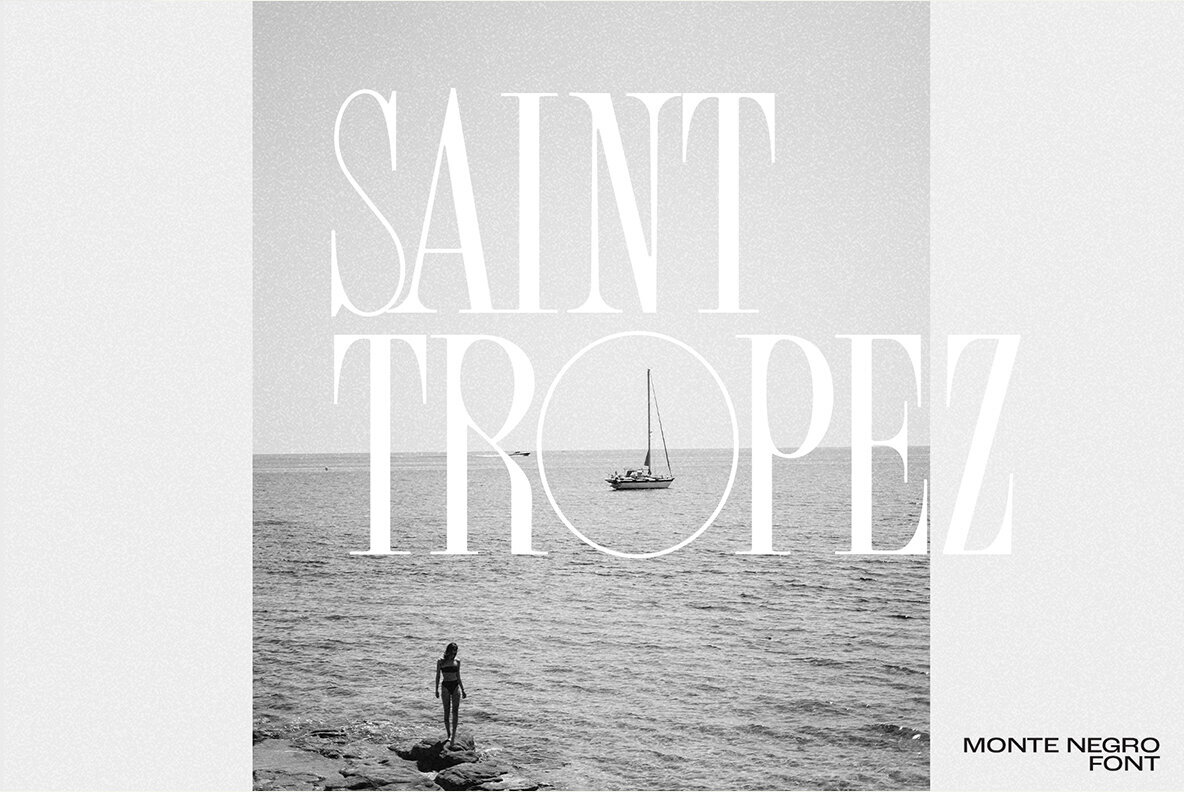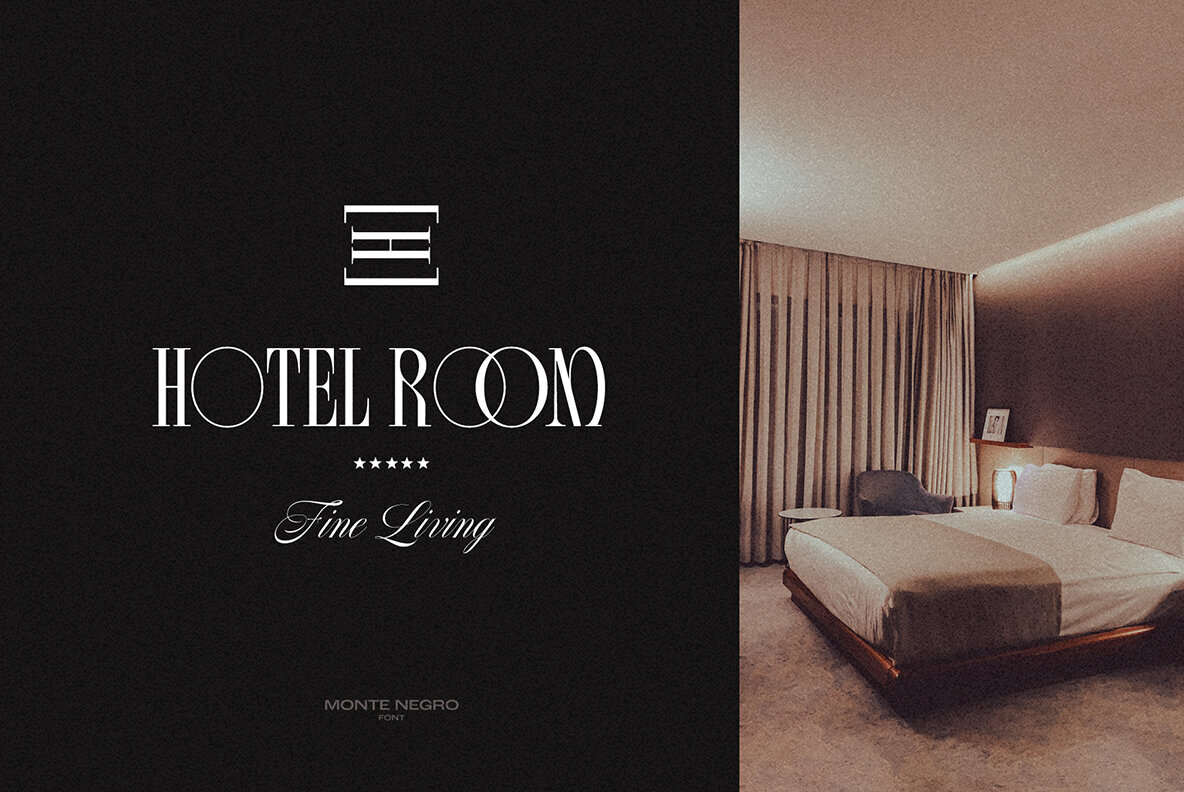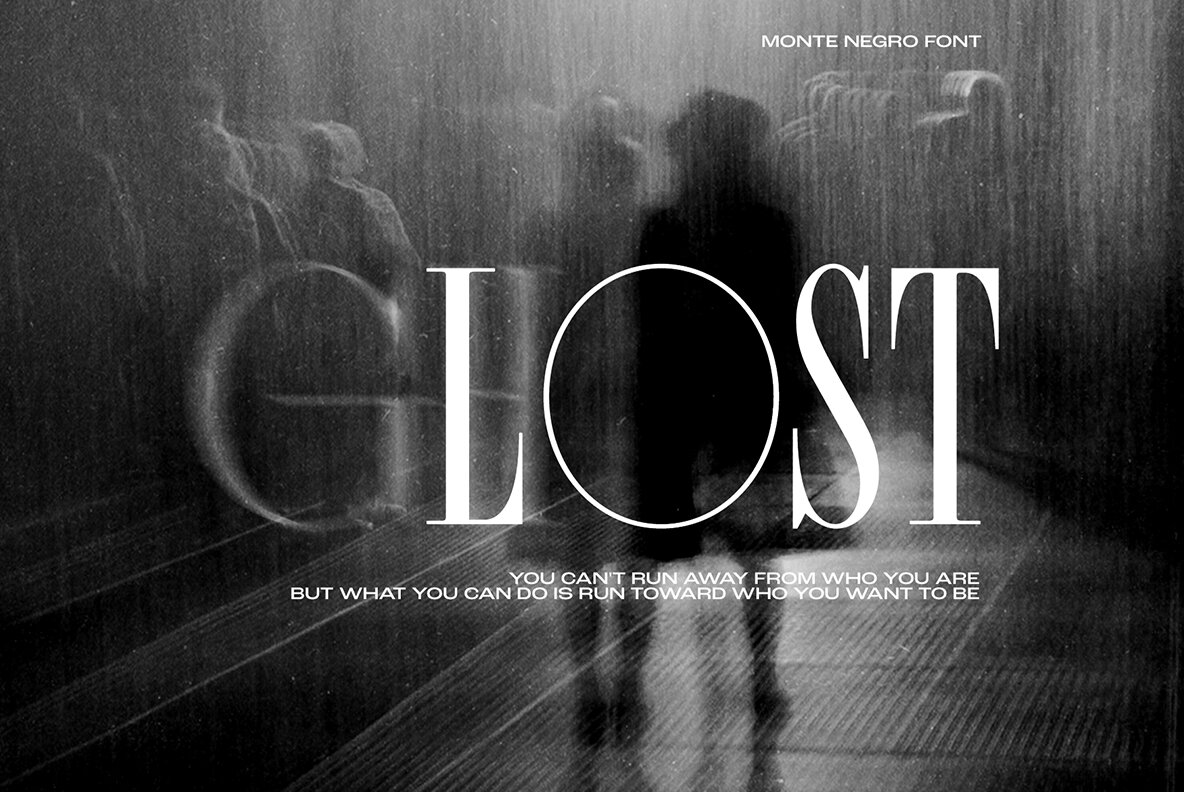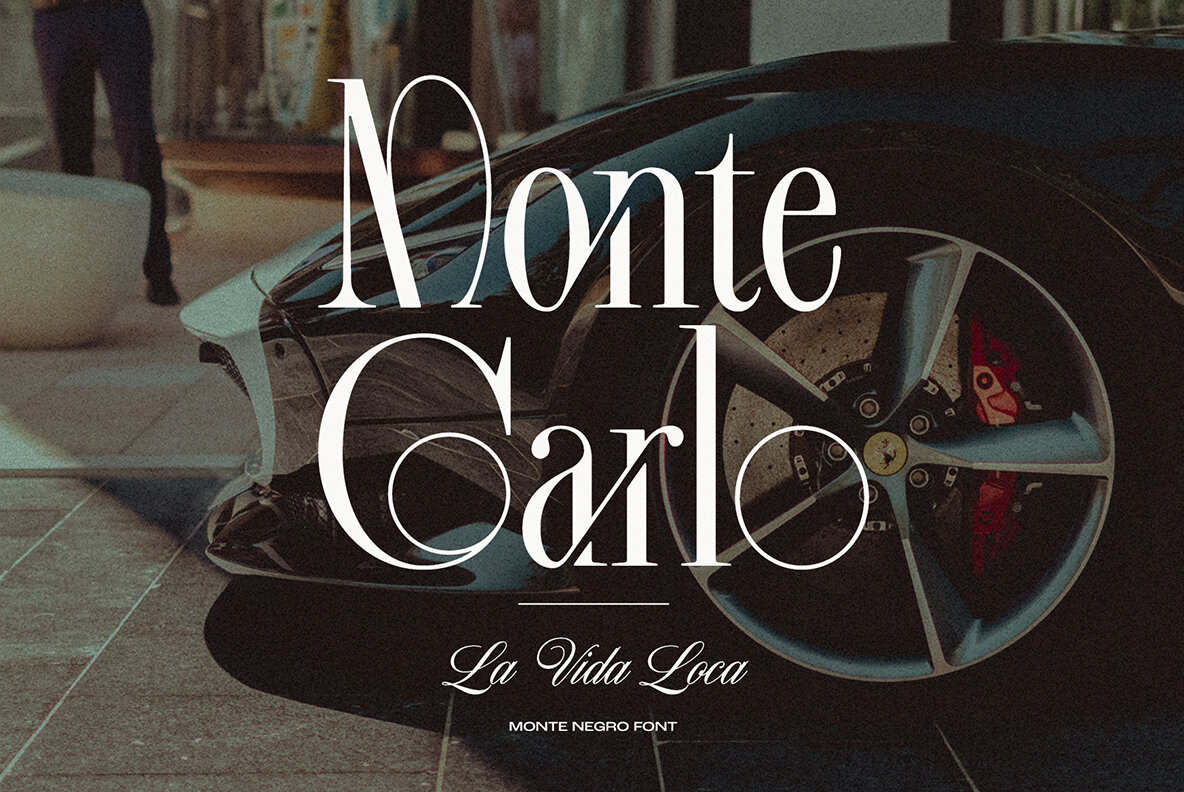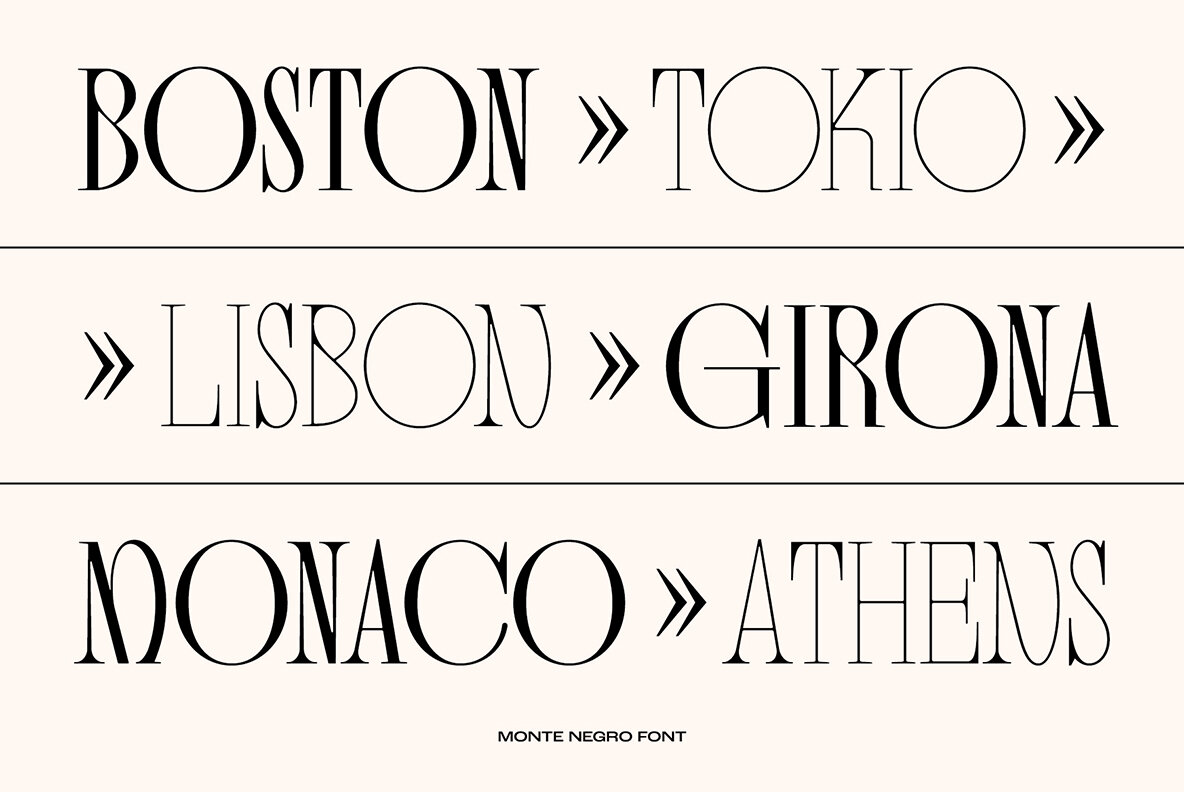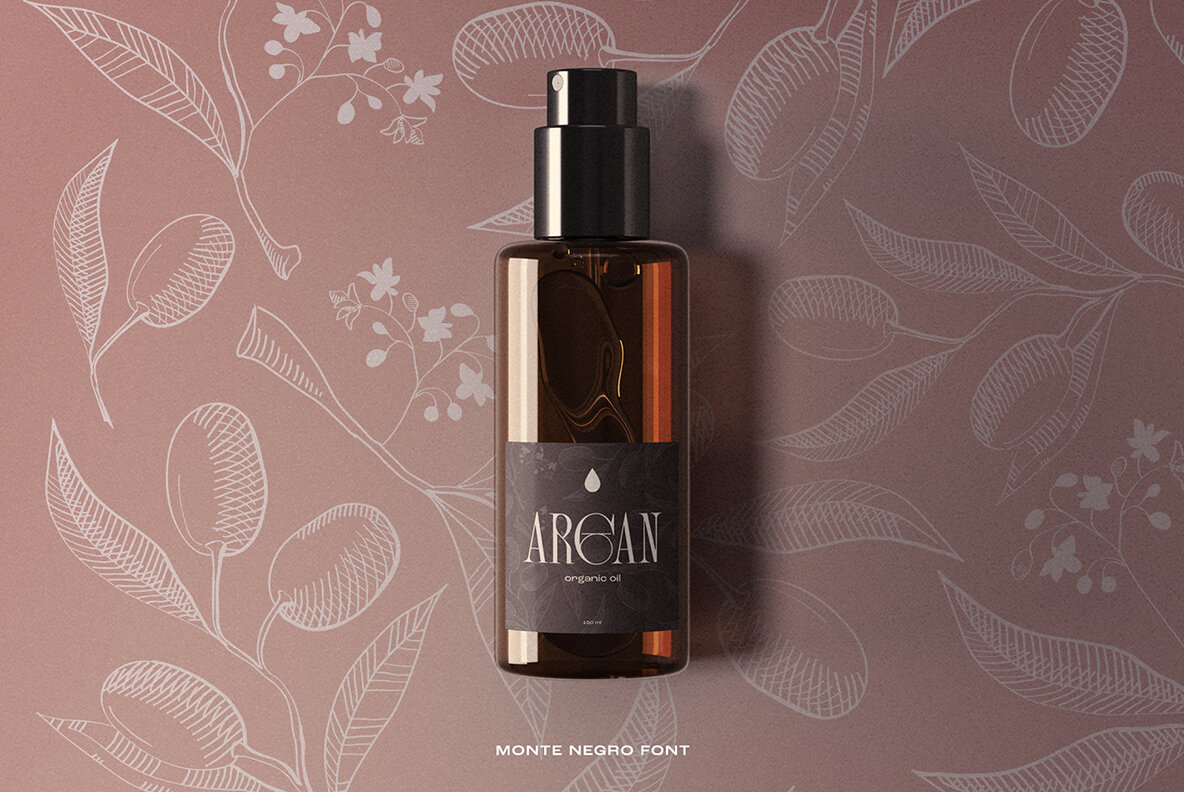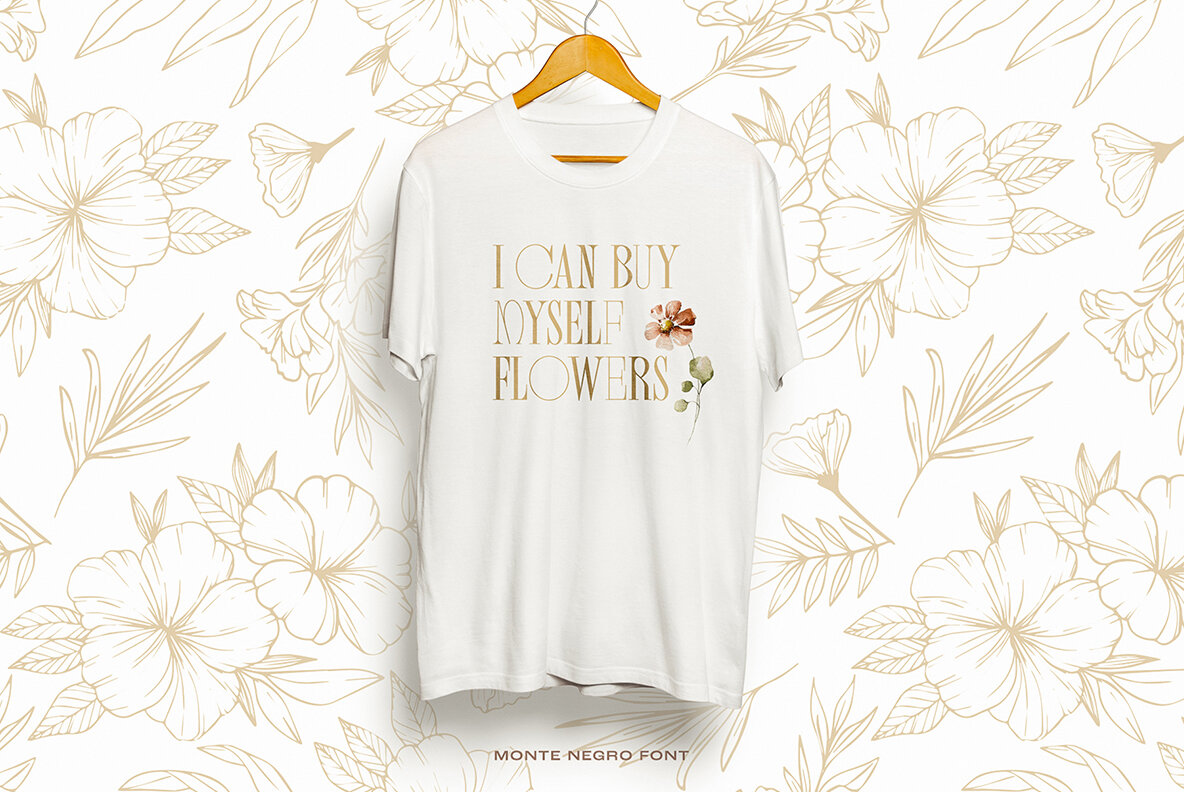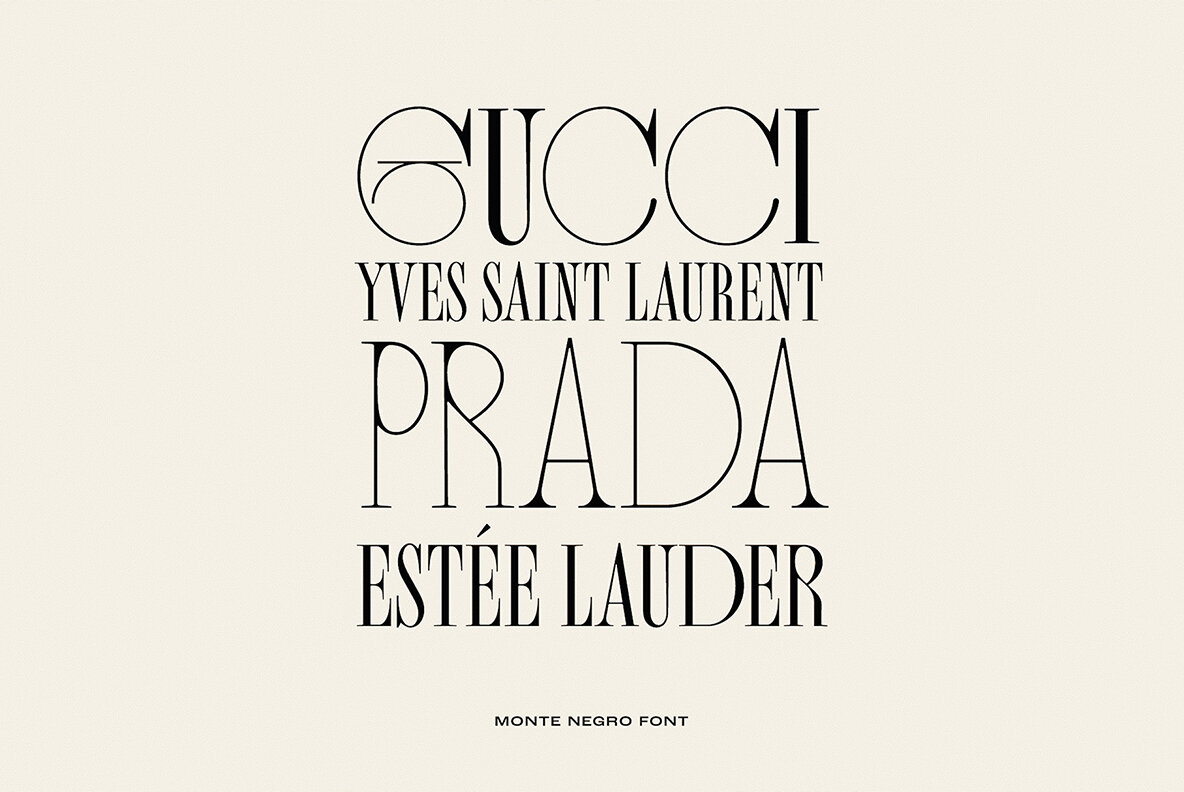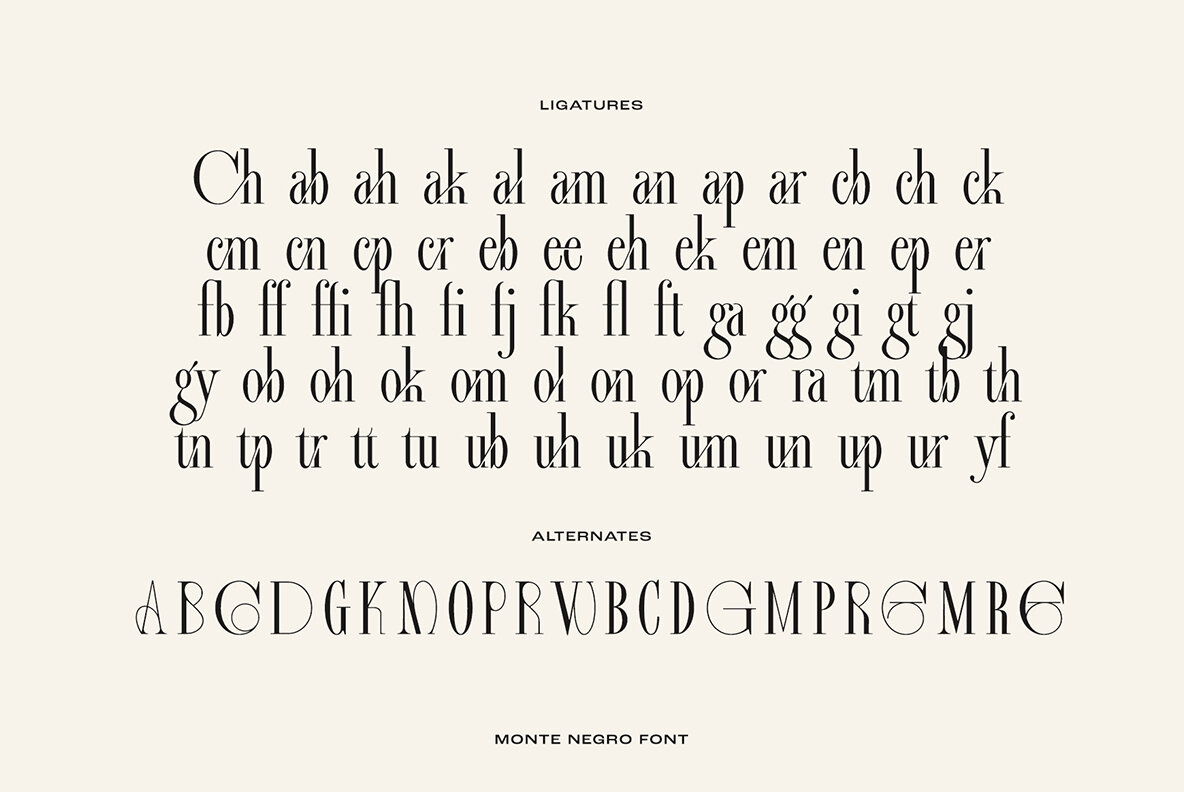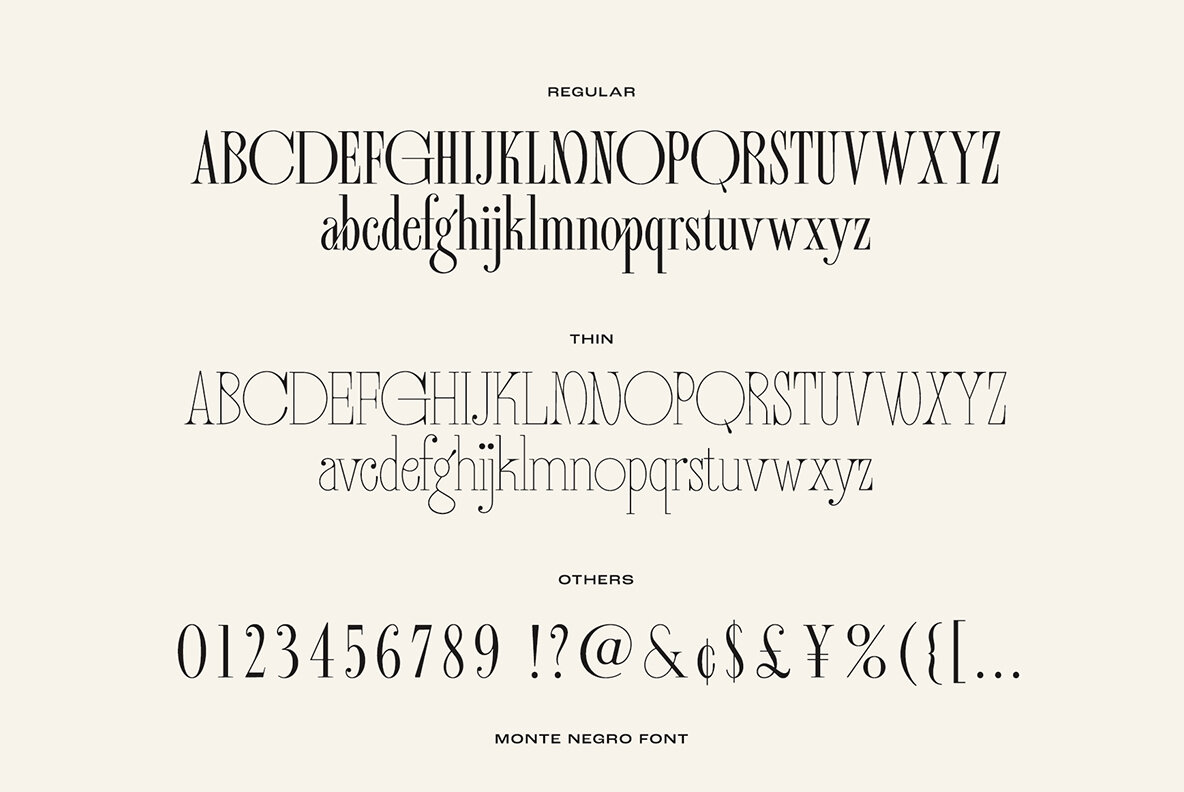
Monte Negro Font
Give your design projects the luxurious touch of Monte Negro! This condensed display serif font is perfect for creating custom logos, invitations and headlines. Featuring 64 stylish ligatures and 33 alternate glyphs, Monte Negro adds a timeless elegance and sophistication to all kinds of creative projects.